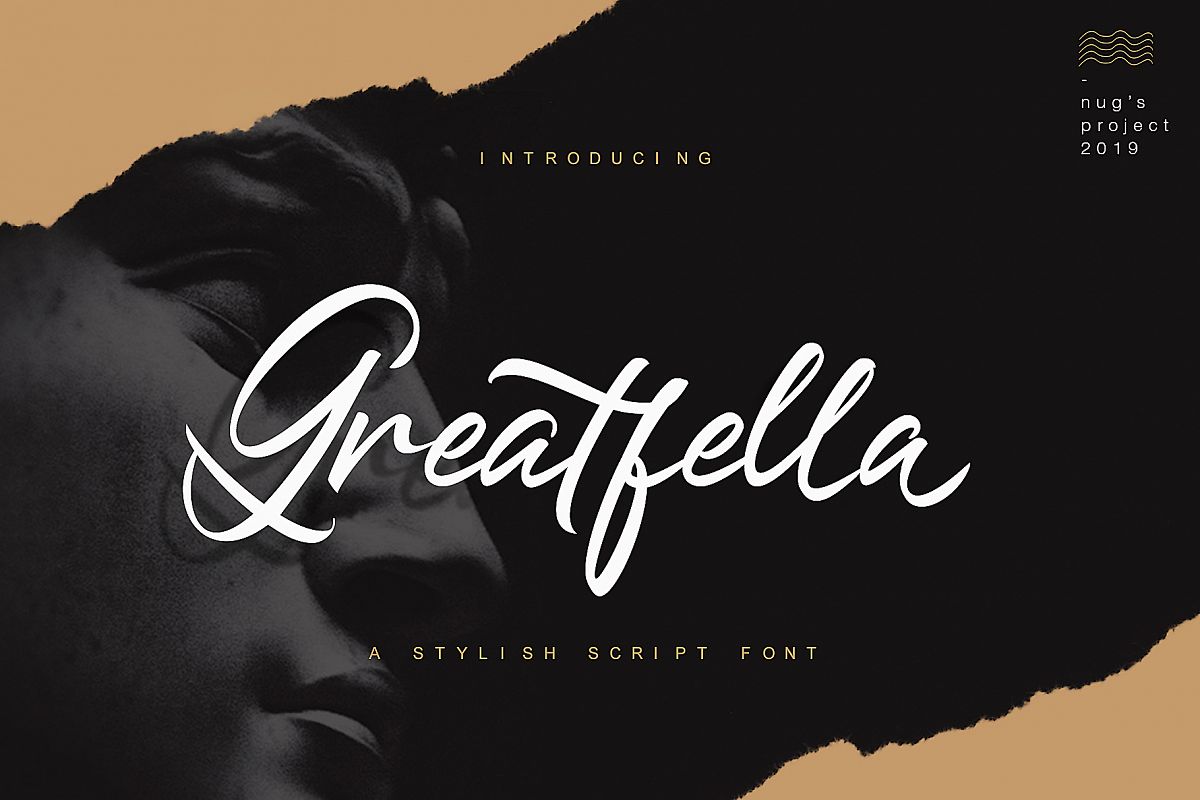
Greatfella
The Greatfella is an amazing brush script font with a dynamic and
energetic style. It can be used for various purposes such as titles,
signatures, logotypes, t-shirt designs, letterheads, signage’s, labels,
newsletters, posters, badges, and every other design which needs an
unique, striking font.